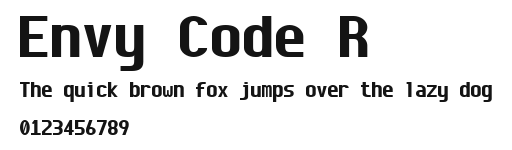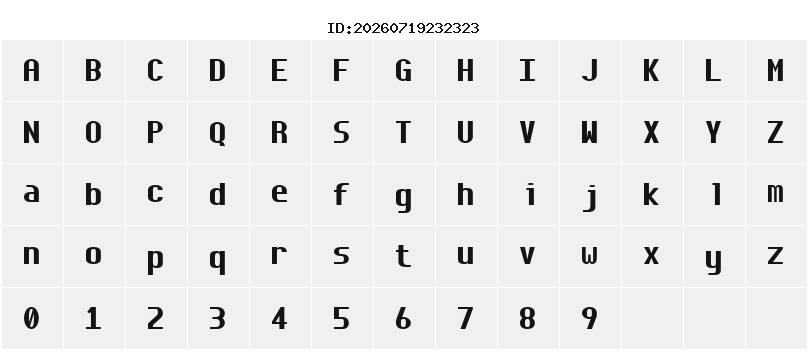
Envy Code R Preview
• Font Name: Envy Code R
• Font ID: EnvyTechnologiesLimited: Envy Code R test Bold: 2006
• Full Font Name: Envy Code R Bold
• Version: Version 0.059 2006
• PostScript Name: EnvyCodeR-Bold
• Character Count: 461
• Designer: Damien Guard
• Manufacturer: Envy Technologies Limited
About Envy Code R.ttf
Envy Code R.ttf is a modern, elegant sans-serif font designed for ultimate readability and visual harmony. Perfect for branding, headlines, web design, and print materials.